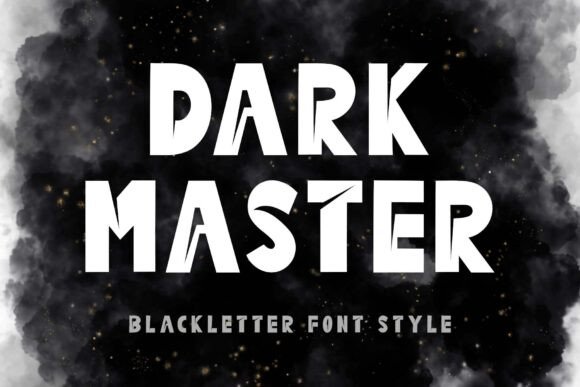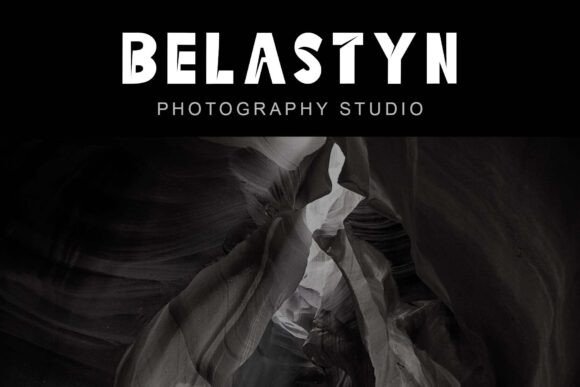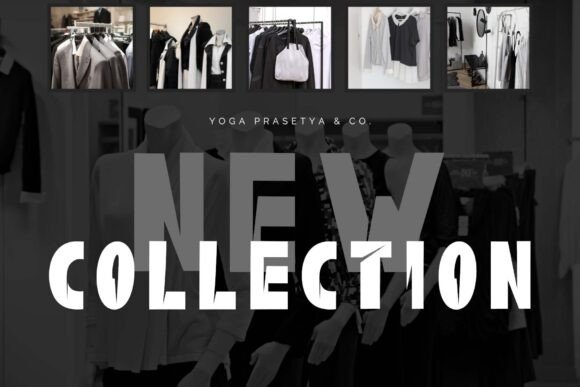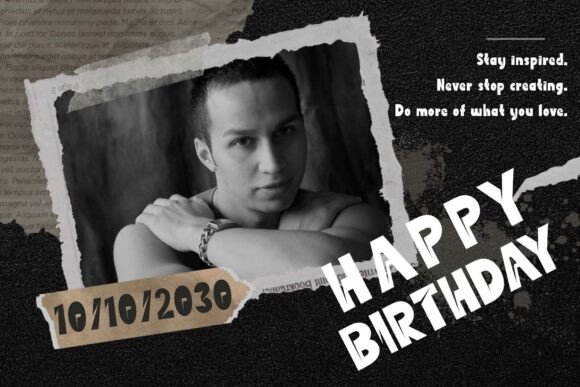
Dark Master Font: Creative Blackletter Typography for Branding
About the Dark Master Font
Welcome to the world of Dark Master Font, a typeface that will inspire your next great project. “Dark Master” is an elegant and modern blackletter font. This font is equipped with uppercase, lowercase, numerals, punctuations and multilingual support. Very suitable for posters, prints, banners, branding, stickers, logos, movie titles, book titles, vacations, adventures, fashion, photography and others.
Dark Master’s strong verticality and sharp serifs make it ideal for headlines, logos, and short, impactful text within branding materials. Its elegance works well in posters and packaging for high-end products, particularly those in the fashion or luxury goods sectors. However, avoid using it for body text or long paragraphs; its intricate detail can be difficult to read at smaller sizes.
The font’s inherent boldness pairs well with clean, minimalist sans-serif fonts like Montserrat or Lato for a modern contrast. For a more classic feel, a complementary serif like Garamond or Playfair Display could create a balanced and sophisticated aesthetic. Avoid pairing it with script fonts, as this could create visual clutter.
Dark Master projects a bold, sophisticated, and slightly rebellious personality. Brands aiming for a strong, memorable presence with a touch of edgy elegance will find this font particularly effective.
Dark Master Font Usage Examples
Dark Master Font Example